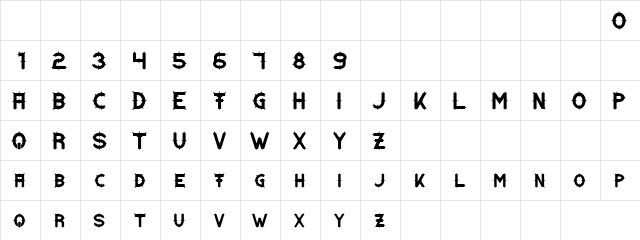
Point Blanc Regular
Design Context for Point Blanc Typeface
Point Blanc is a composed and adaptable typeface that performs quietly and consistently across a wide range of design contexts.
Pro Tip: Use Point Blanc in both headline and body roles to test its range before committing to a single application.